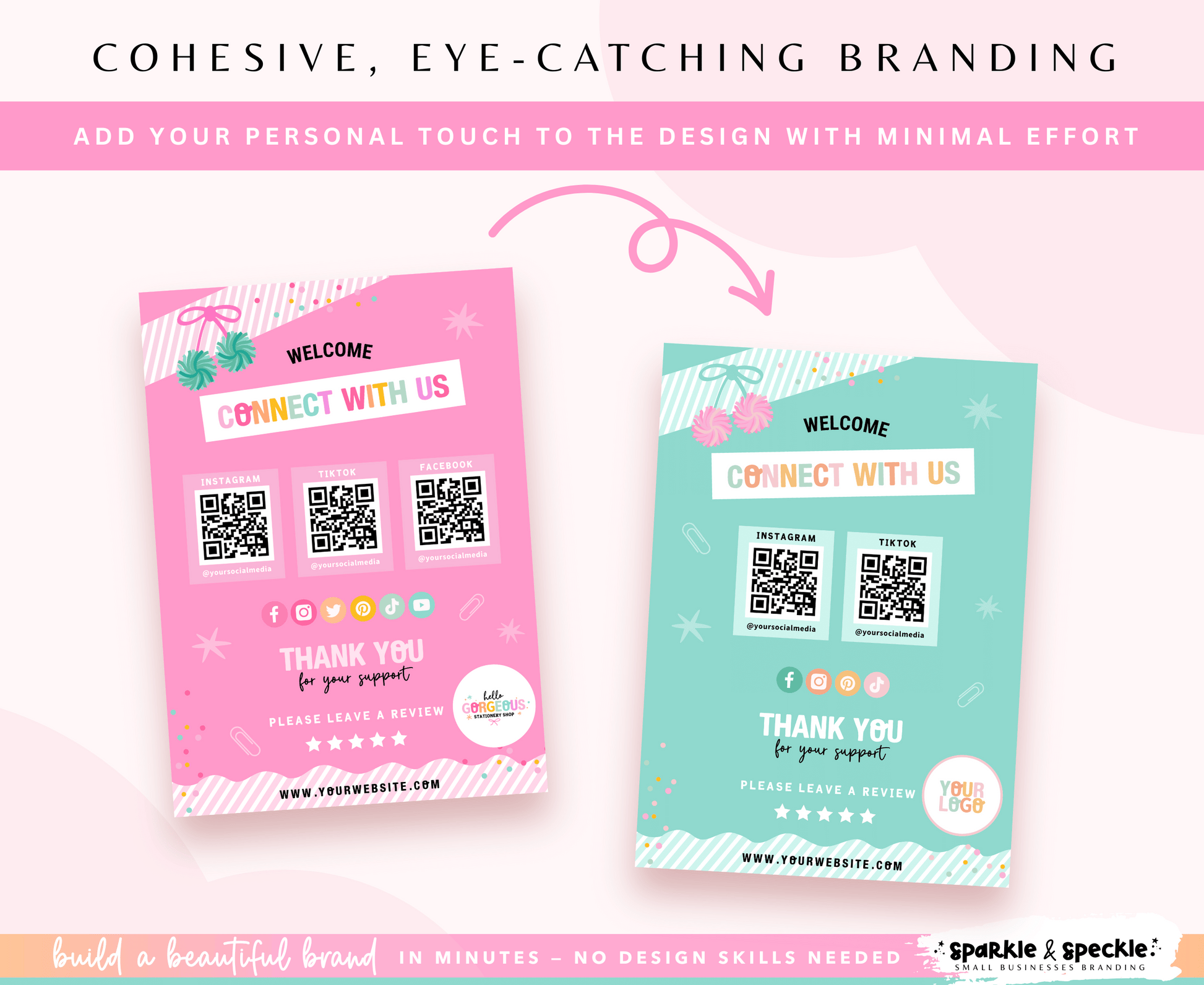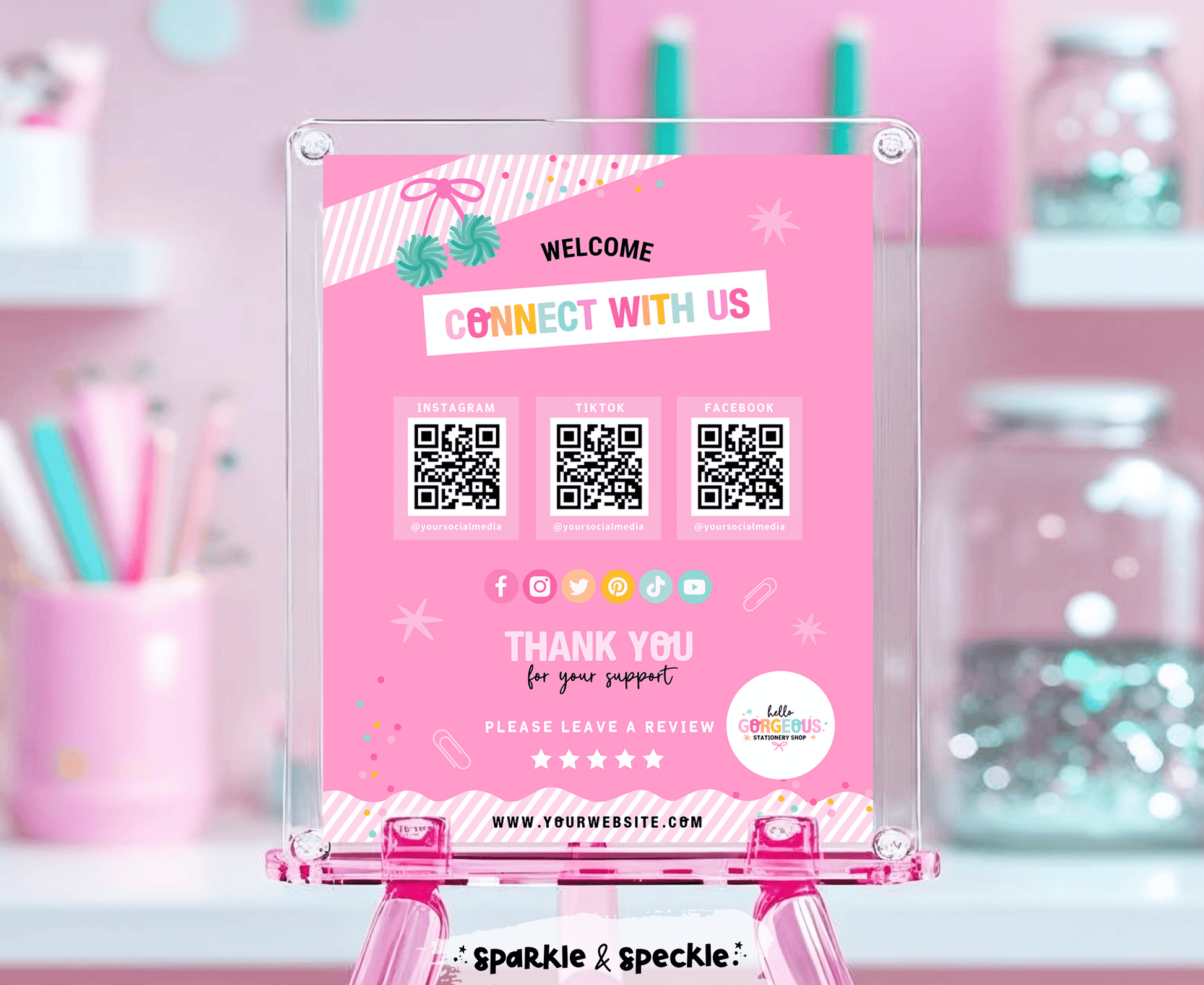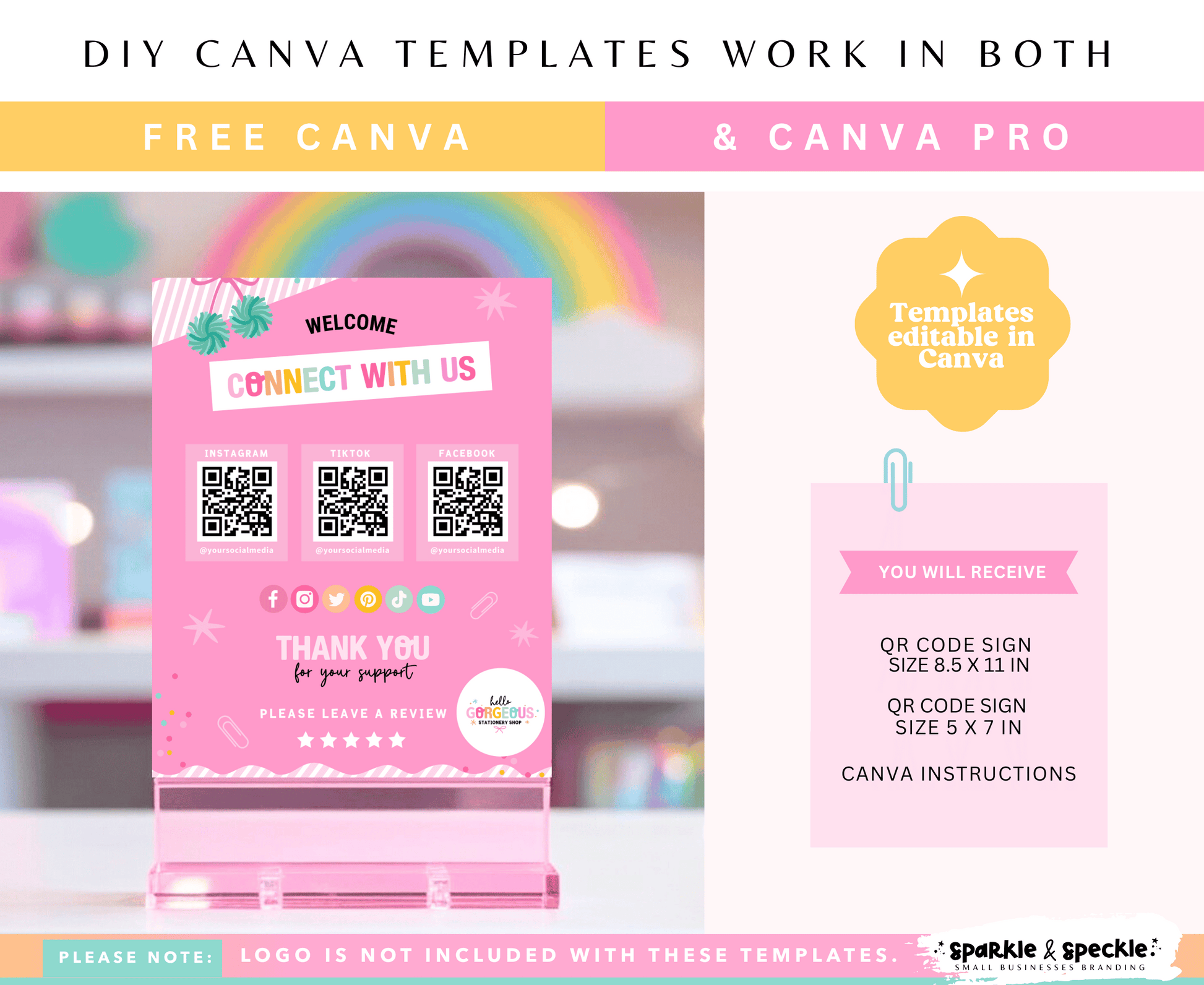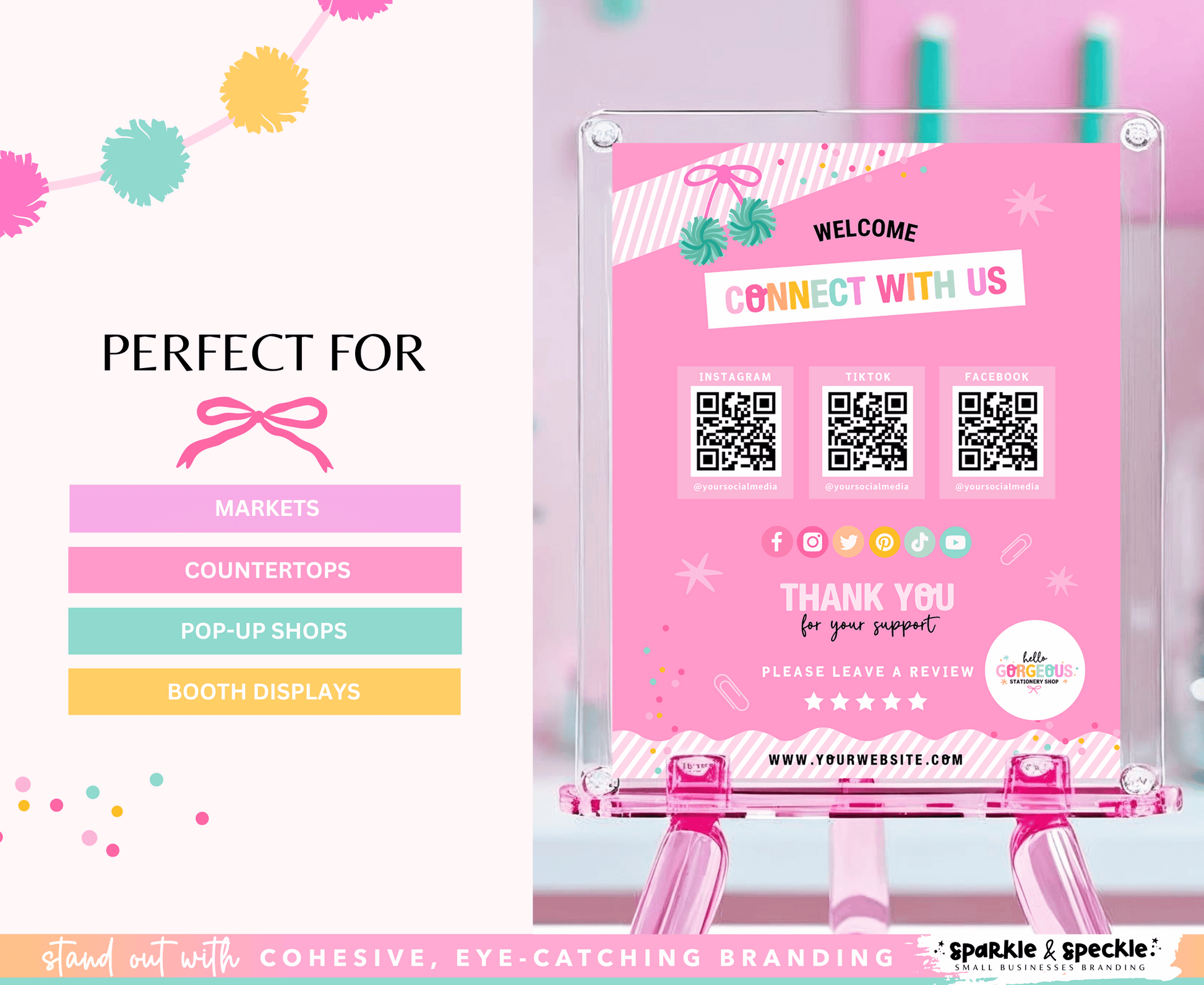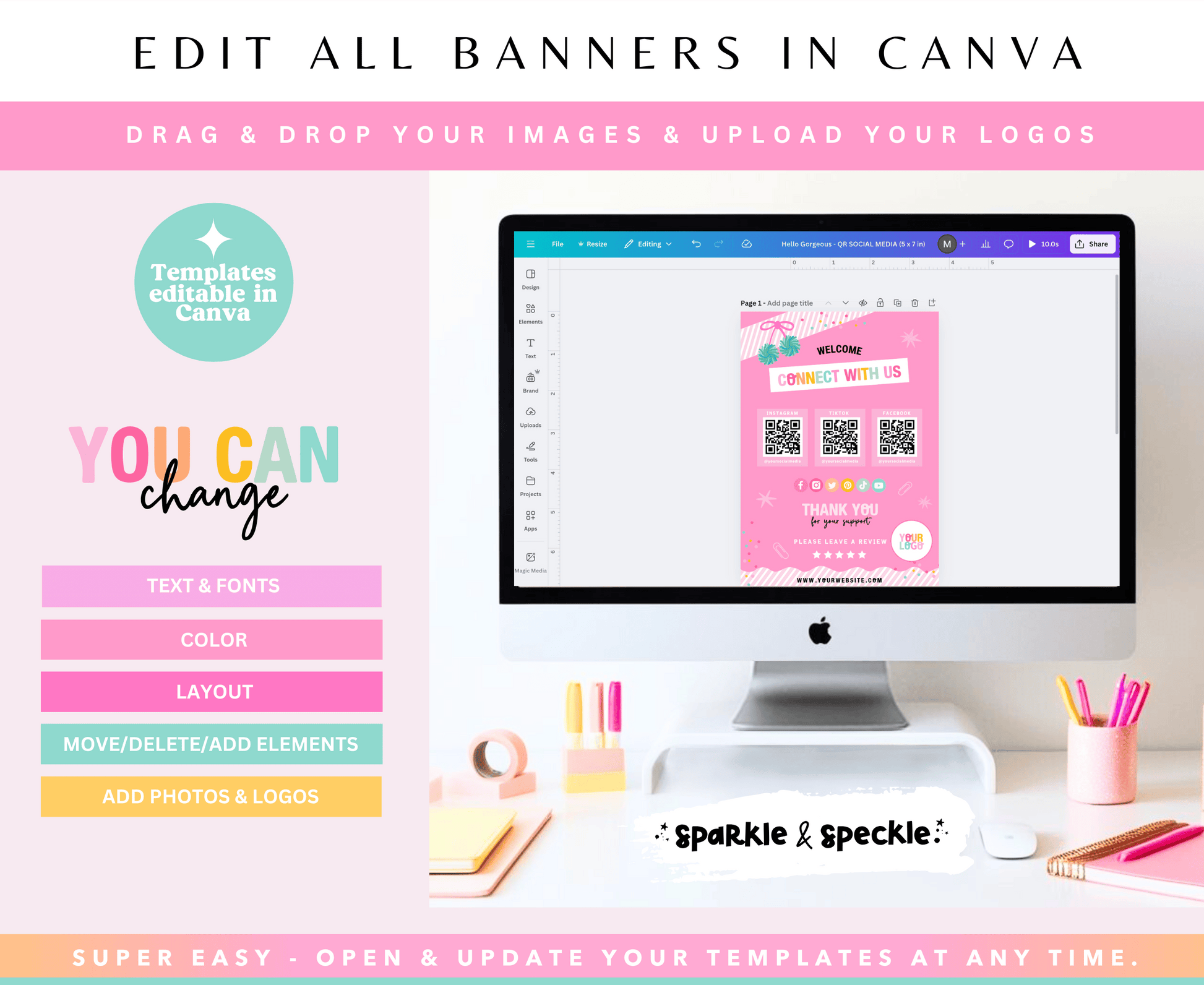
Editable Canva QR code sign for craft and stationery sellers – help customers follow your brand with this colorful "Connect With Us" template. Add links to your website, socials, offers, or event info — perfect for markets, booths, and packaging. Features a bright pastel palette with playful stars, pom-poms, and bold layout. Customize easily in Canva and print or share digitally to grow your community with style! Let your brand stay top of mind, long after the sale.
✔️ Optimized for Social Media – Perfect for linking Instagram, TikTok, websites & more
✔️ Great for Counters, Booths & Product Inserts – Use at events, checkout stations, or in packaging
✔️ Customize your brand in minutes — no design skills needed
Completely customizable designs that can be tailored to your brand allowing you to add your own personal touch to the design with minimal effort. You can change, move, add and delete all text, fonts, elements, photos, colors, QR Code and backgrounds.